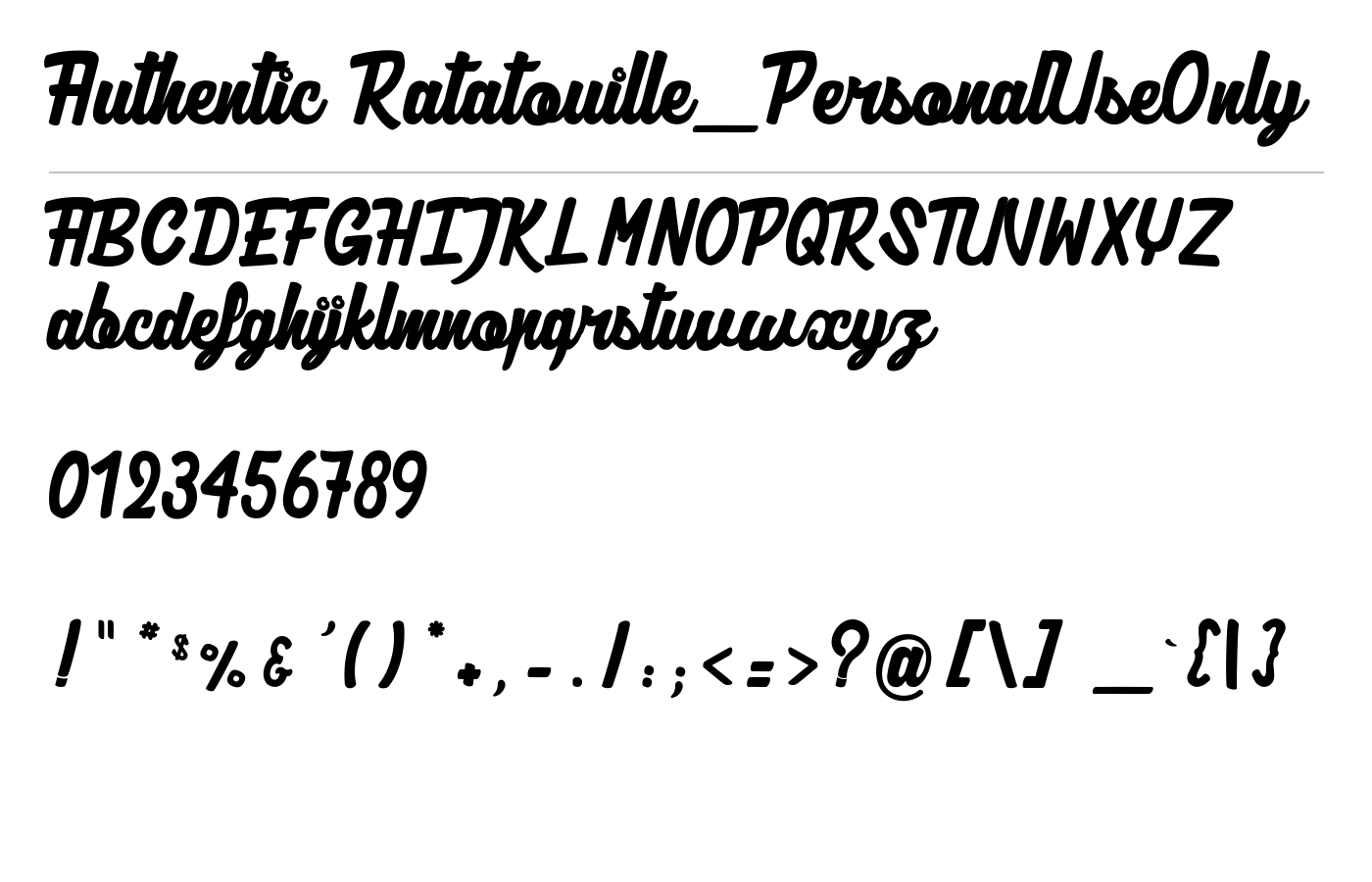
Authentic Ratatouille is a bold, playful script font with a smooth, hand-lettered feel that combines strong, rounded strokes and a slightly condensed structure. Its lively and informal style makes it perfect for creating inviting headlines, logos, or packaging that convey warmth and creativity. This font works well for brands seeking a friendly, approachable personality with a touch of personality and flair.
Authentic Ratatouille_PersonalUseOnly Font
About Authentic Ratatouille_PersonalUseOnly Font